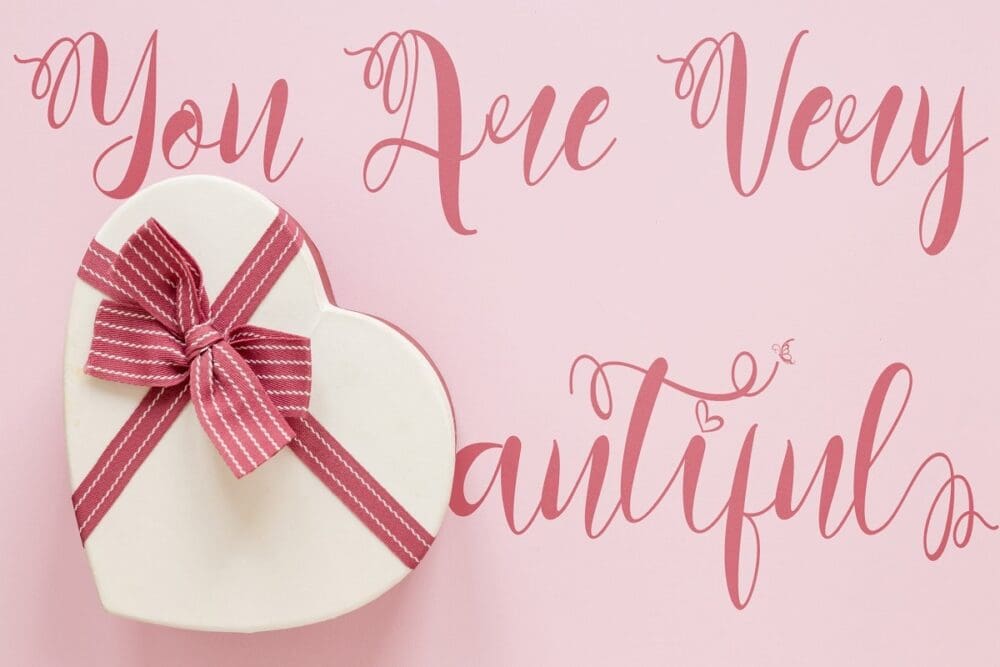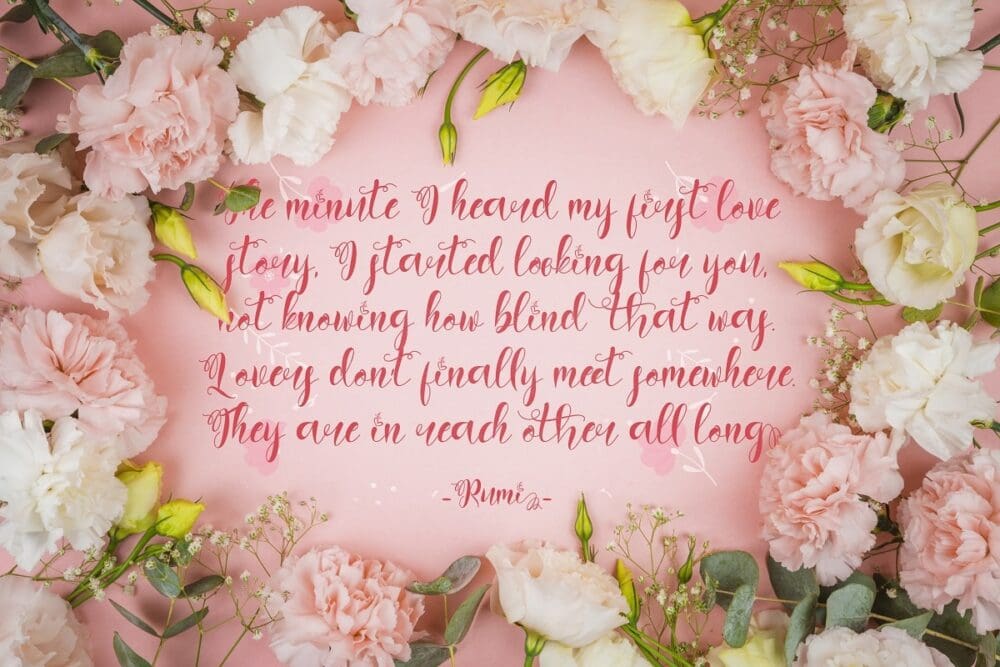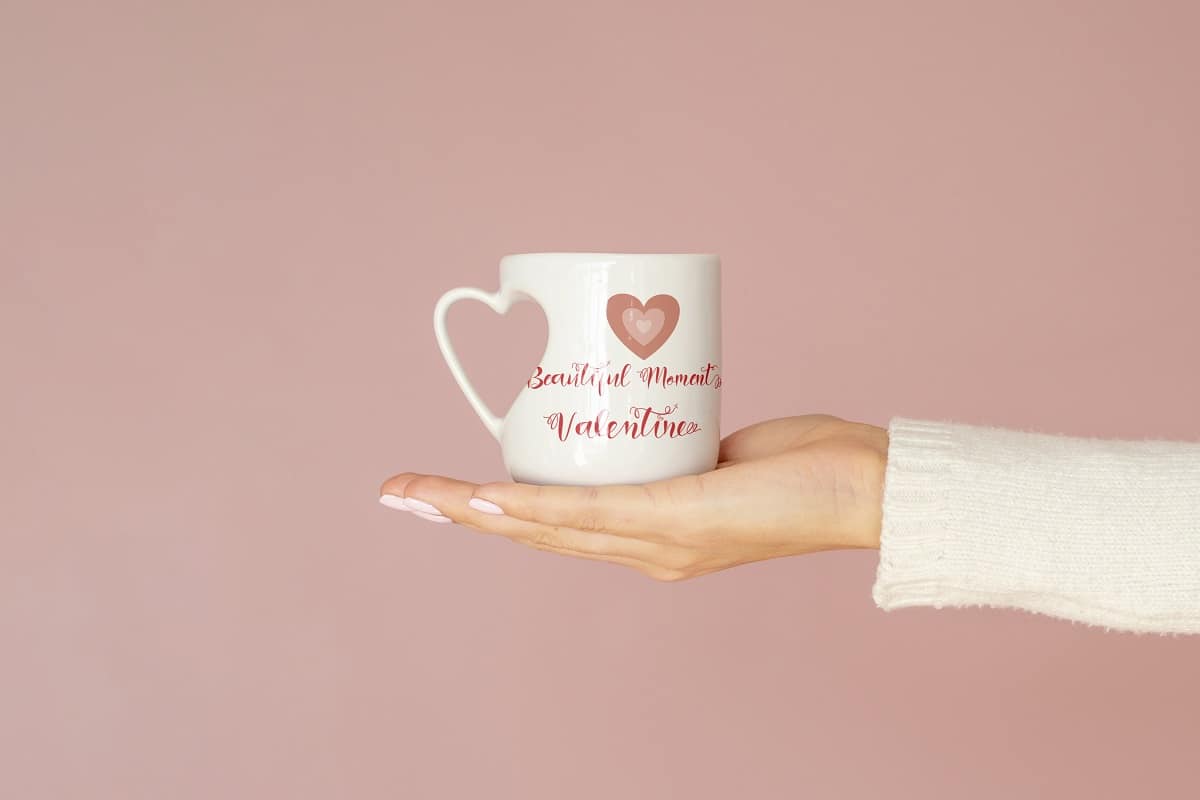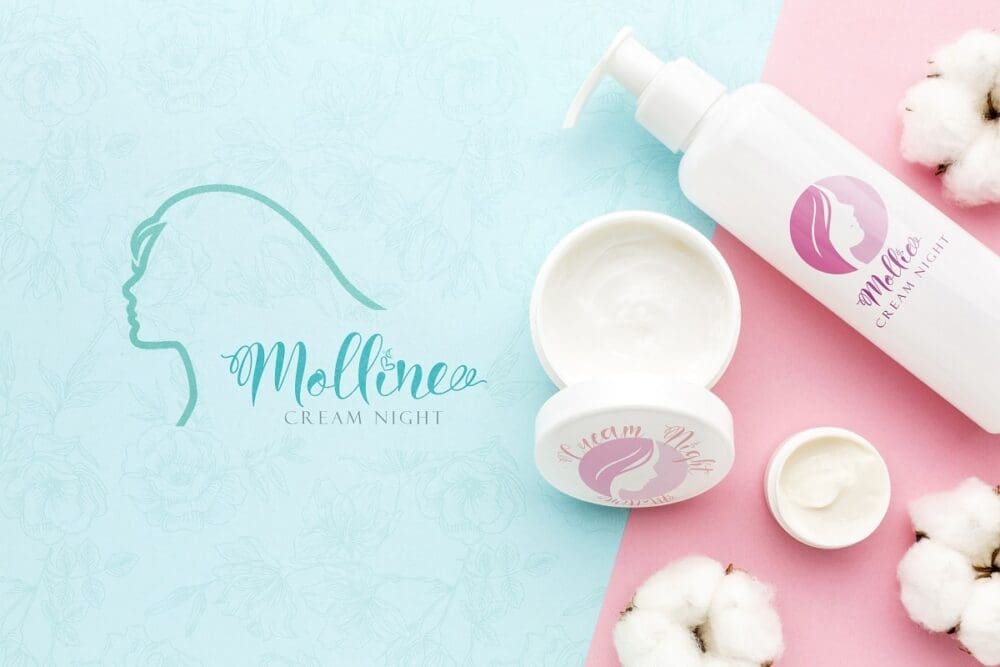
Art Valentine Font
Art Valentine is a very pretty and unique handwritten font. This font is perfect for Valentine’s Day related projects and various other jobs such as weddings, invitations, logos, banners, posters and much more.